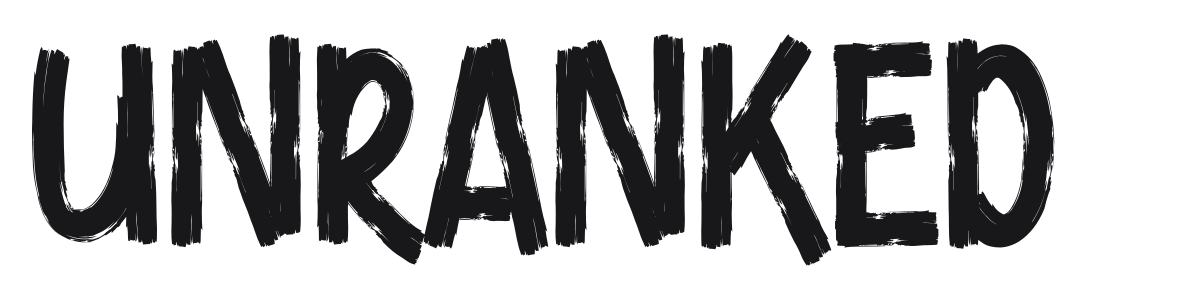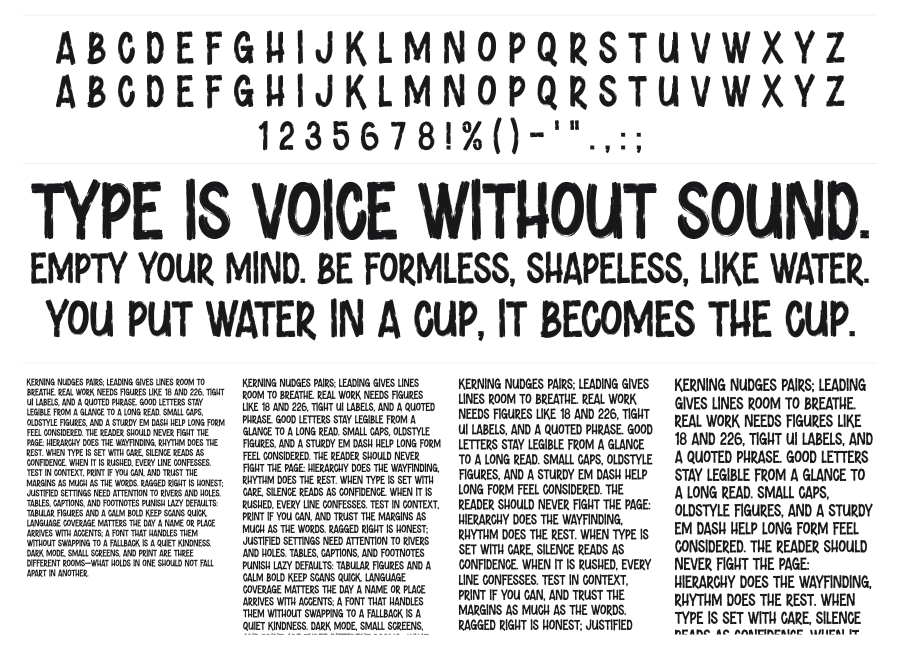
Unranked
Unranked is a heavy distressed sans-serif with rough brush-stroke texturing that gives every character a hand-painted, worn quality. The wide, blocky construction reads as confident and confrontational, somewhere between street signage and spray-paint culture. It brings raw energy to posters, merchandise, and any headline that needs to feel unpolished and direct.